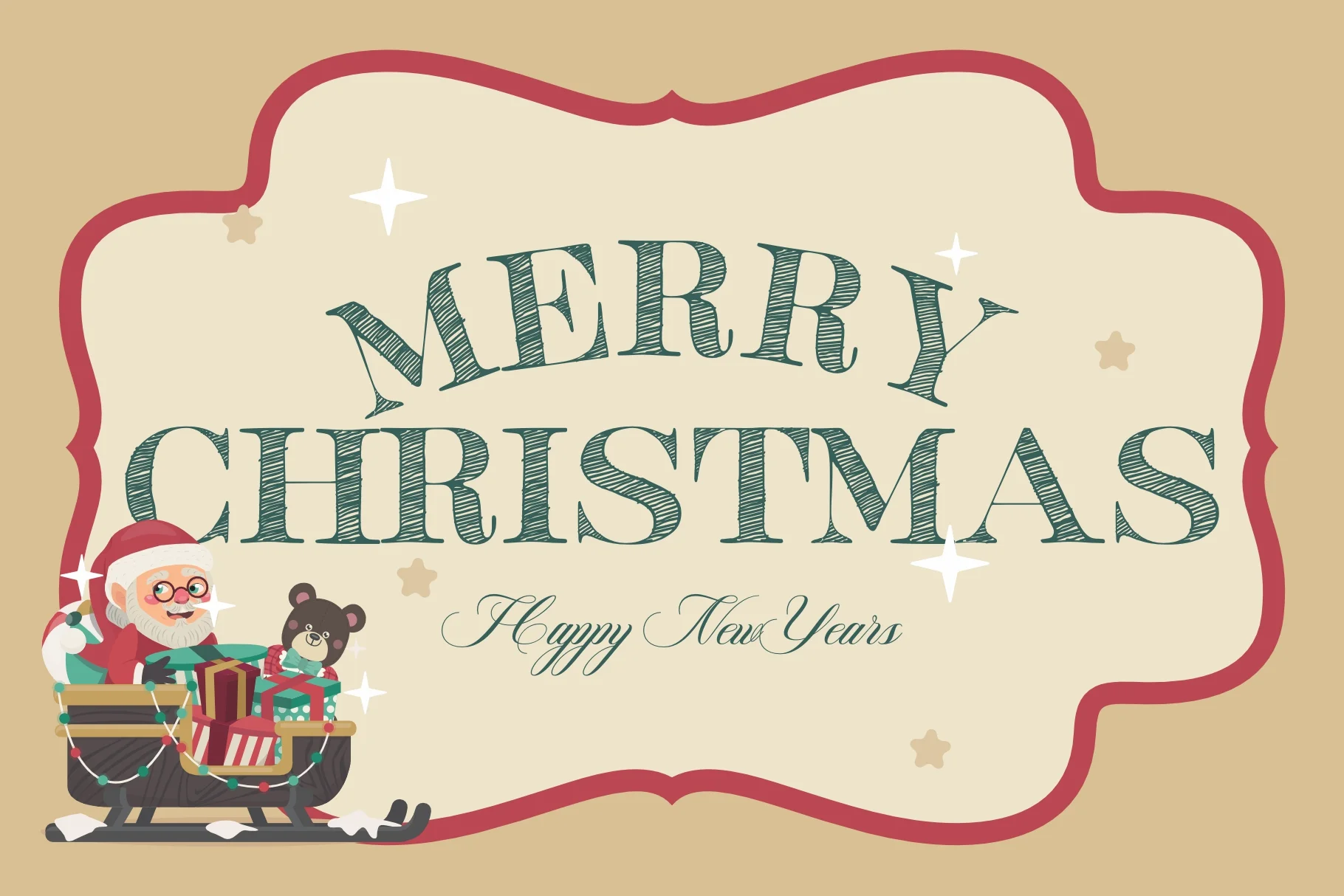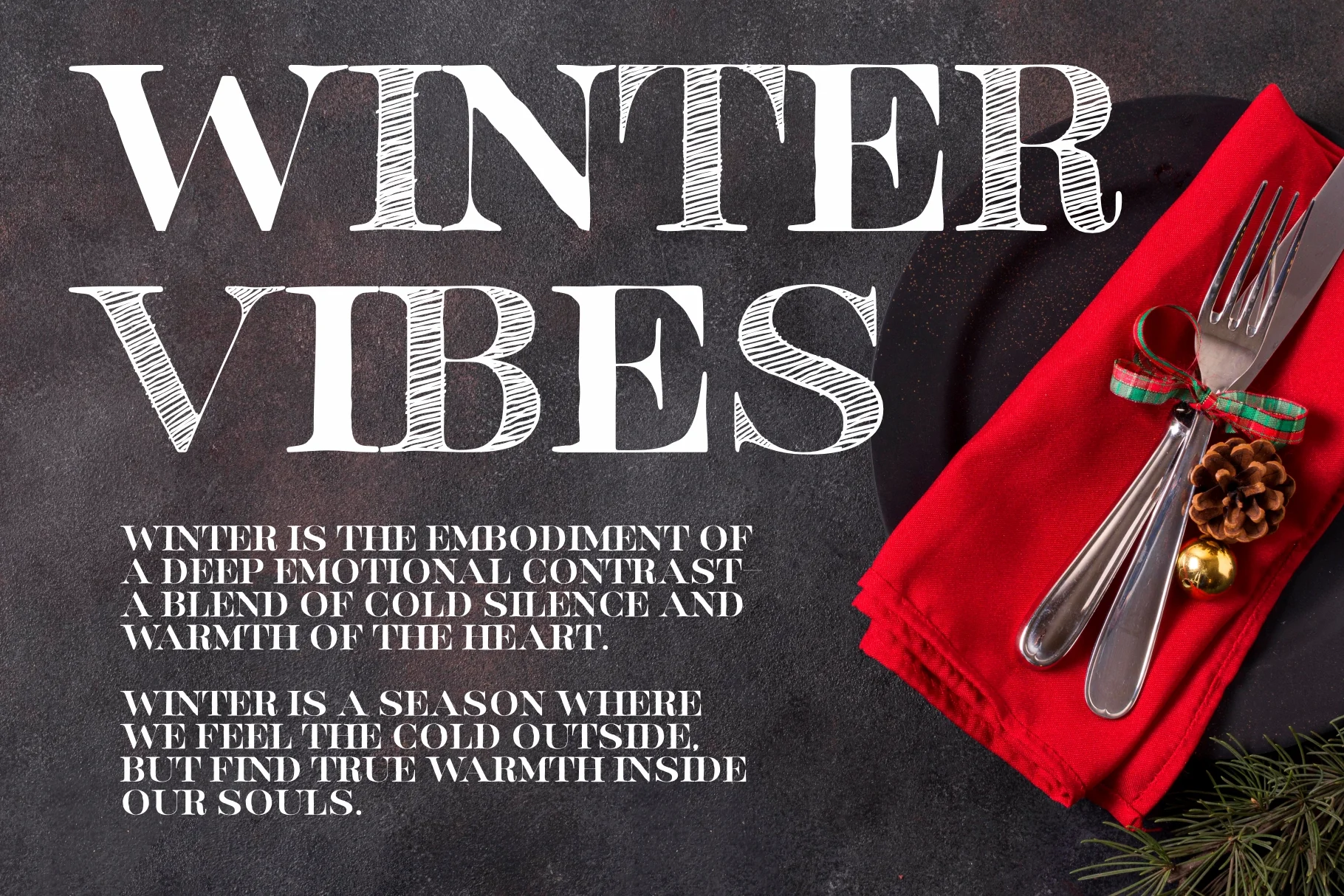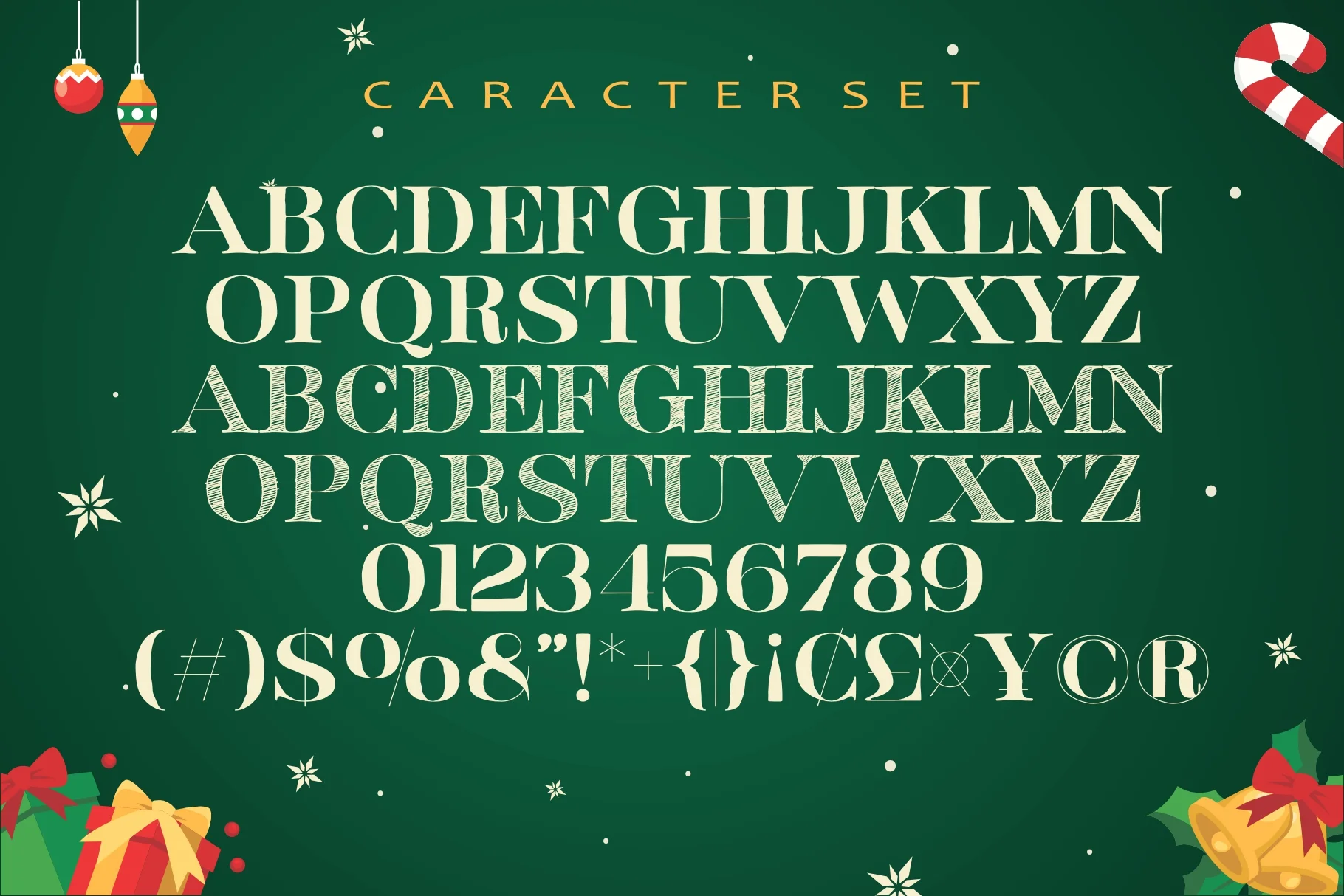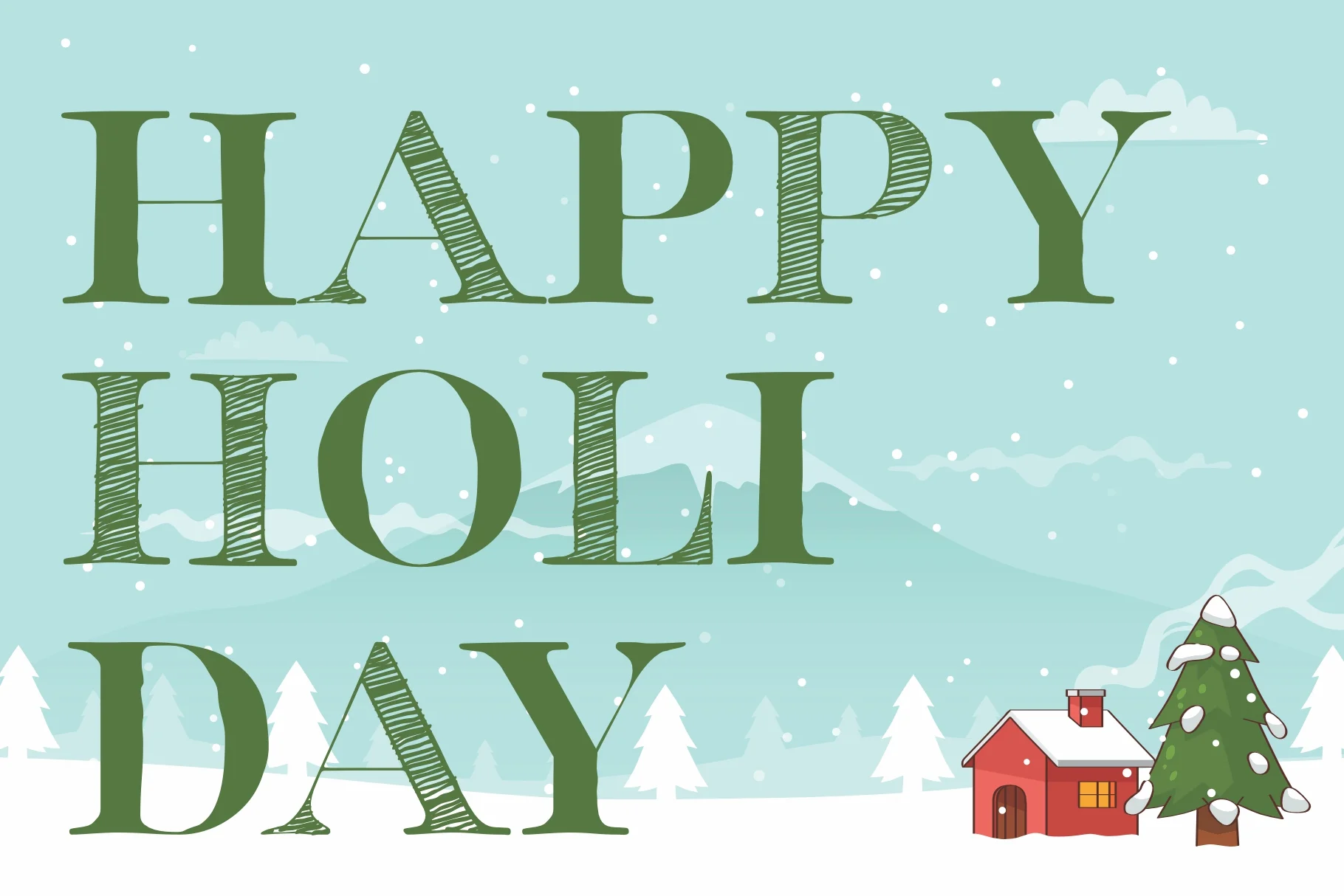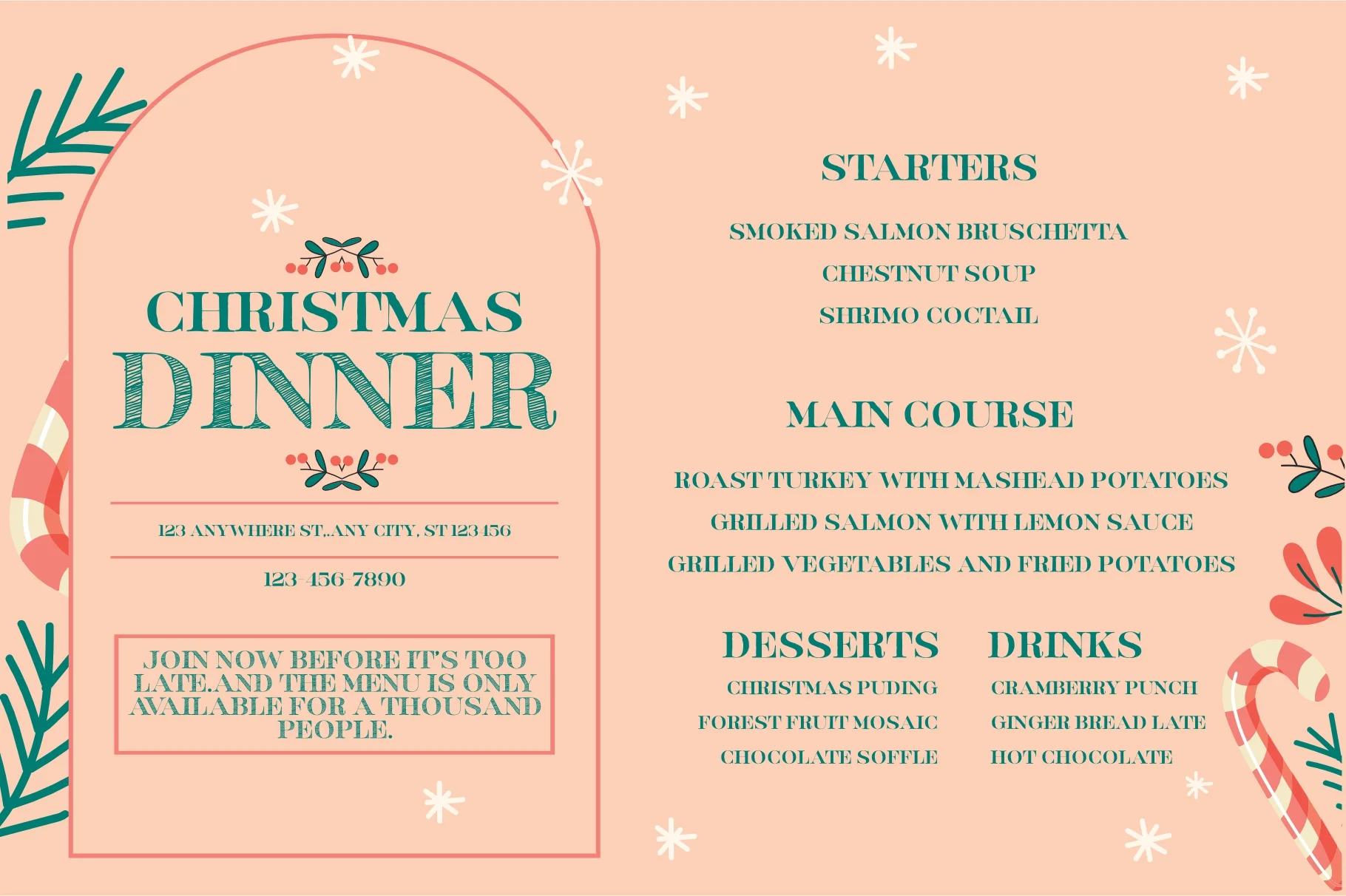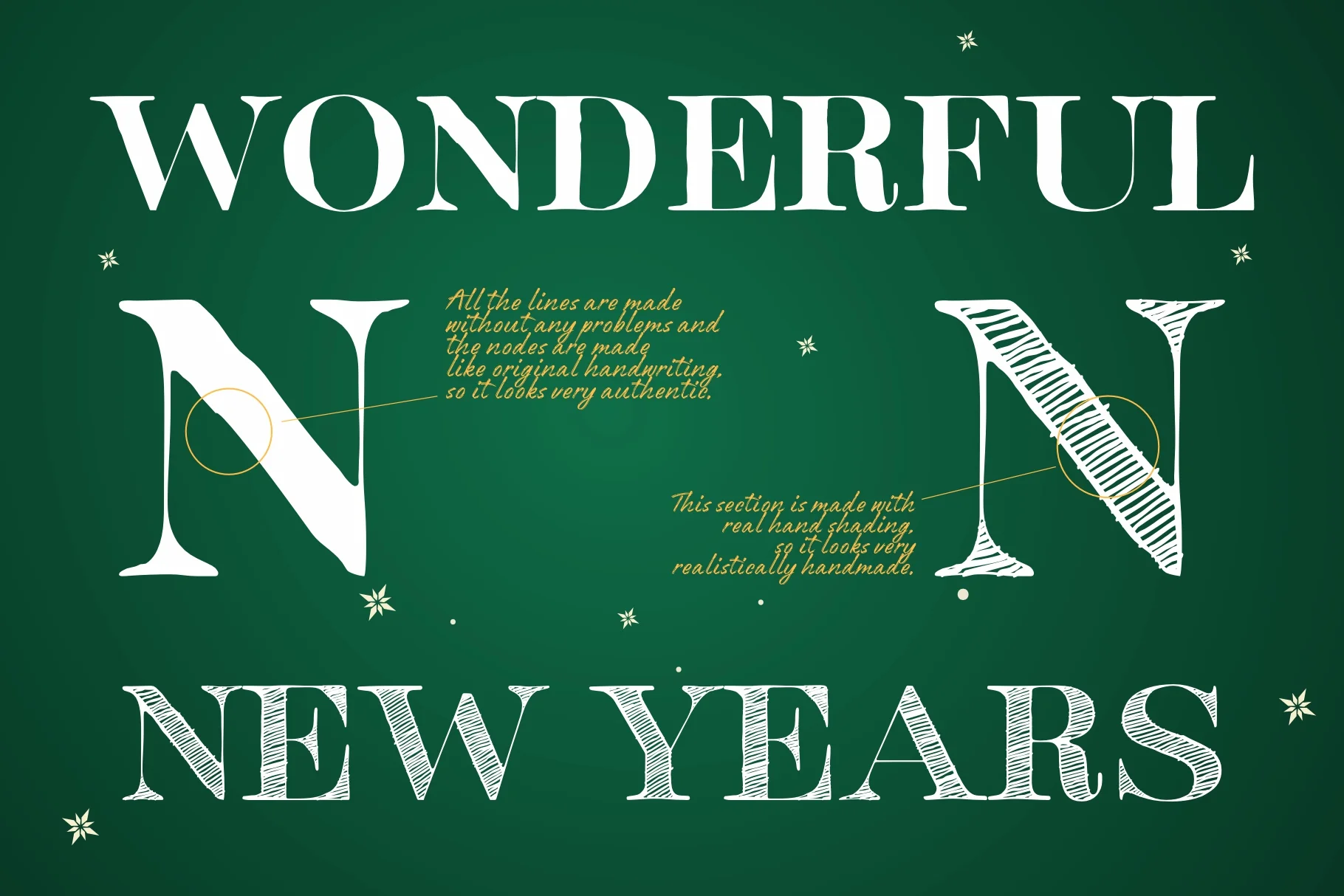
Winter Dinner
Winter Dinner is described as a vintage handwritten display font specifically tailored for festive seasonal projects. It blends a classy, calligraphy-influenced structure with a contemporary, charming feel. The typeface is characterized by two distinct styles:
- WINTER (Top Line): A bold, high-contrast serif display font with thick vertical strokes and elegant curves.
- DINNER (Middle Line): A sketched or "hatch" style variation that mimics the look of hand-drawn chalk or pencil shading, adding a rustic, chalkboard-inspired texture to the design.
This font family is designed to evoke a "sweet, friendly, and charming" atmosphere, making it ideal for Christmas dinner menu posters, holiday invitations, and romantic seasonal branding.